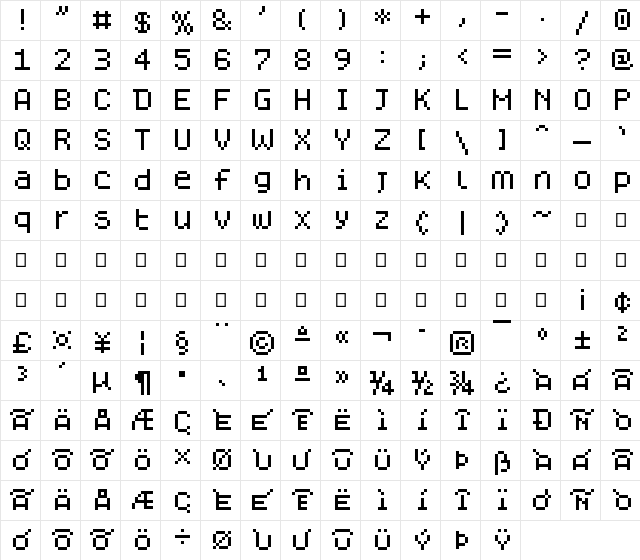
Dogica Pixel Regular
Design Context for Dogica Pixel Typeface
Dogica Pixel is rooted in pixel-grid construction, making it a natural fit for game UI, retro computing aesthetics, and digital nostalgia projects.
A natural choice for retro game titles, chiptune music branding, 8-bit UI, and digital nostalgia projects.
Pro Tip: Pair Dogica Pixel with flat colour palettes and simple geometric UI elements to reinforce its digital aesthetic.